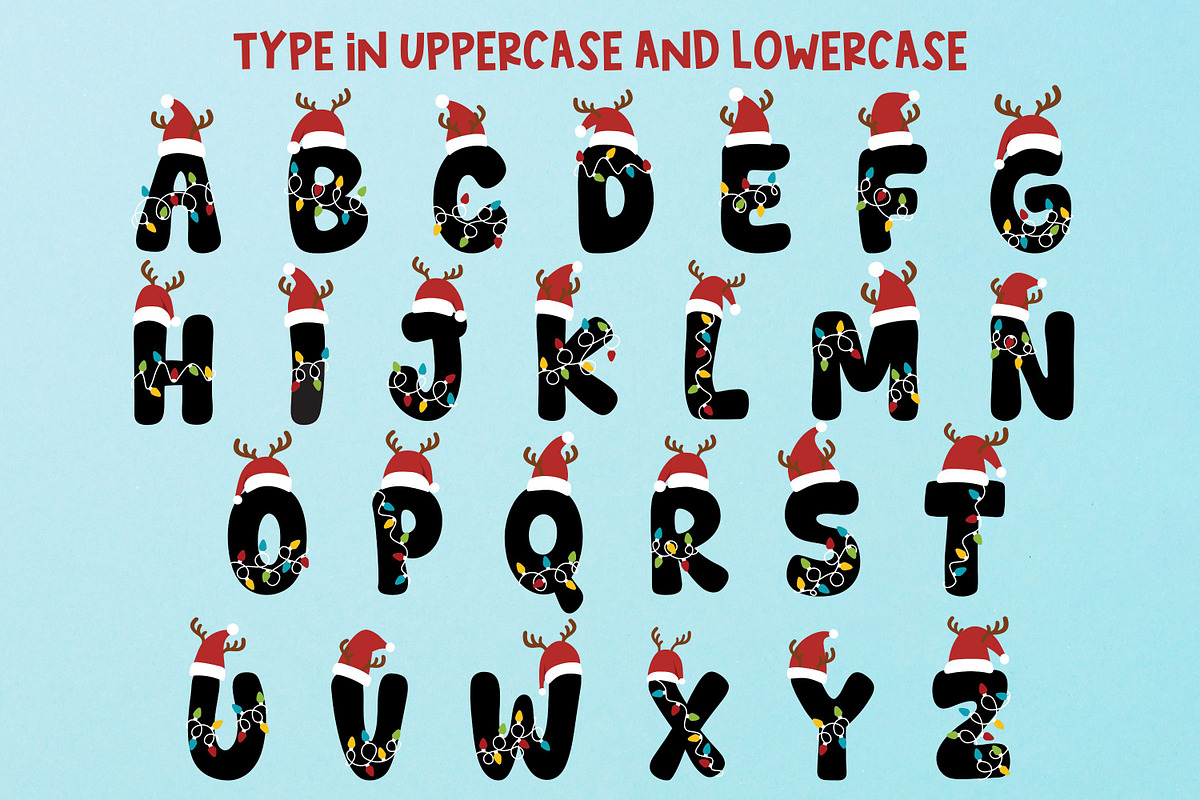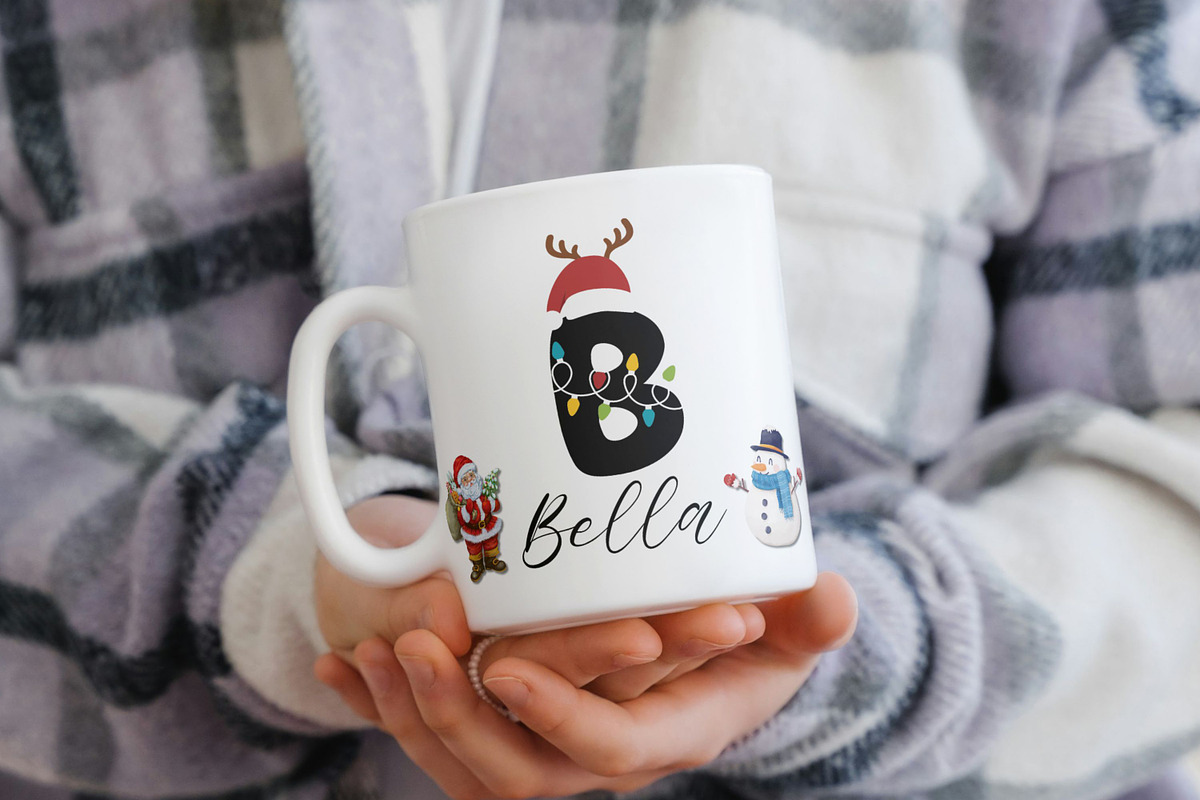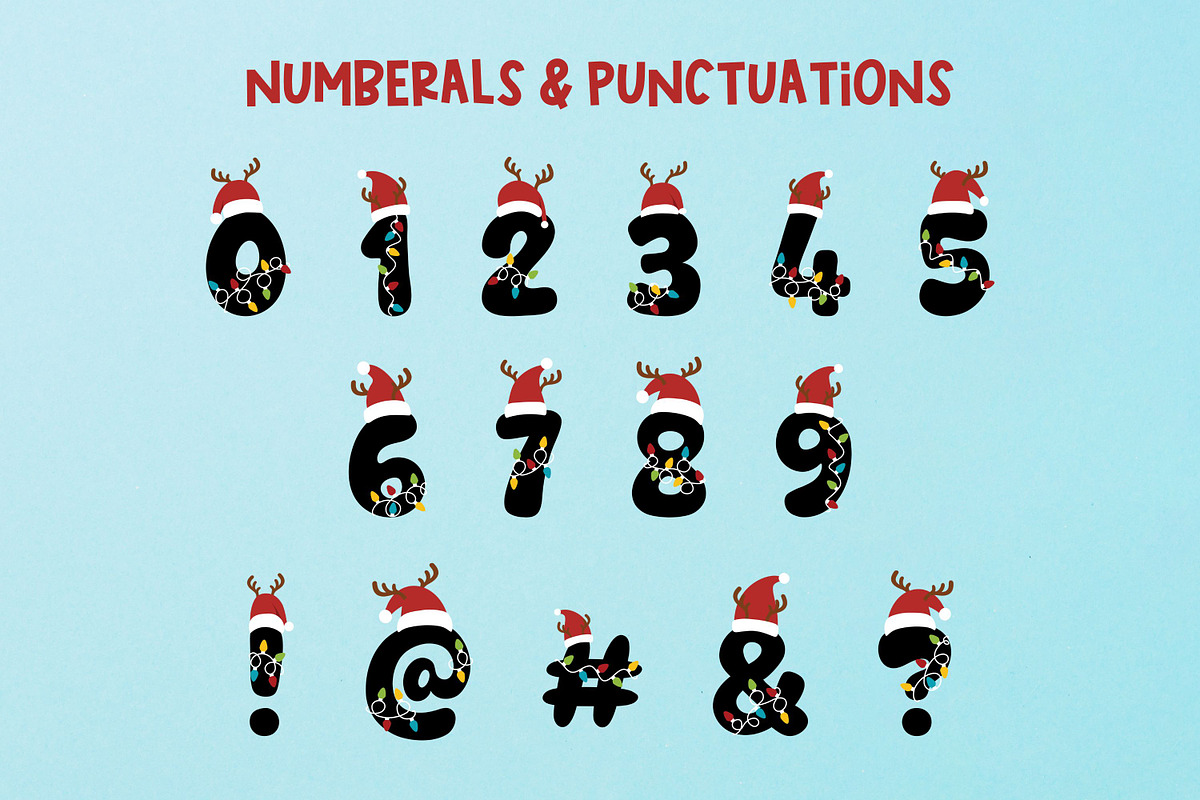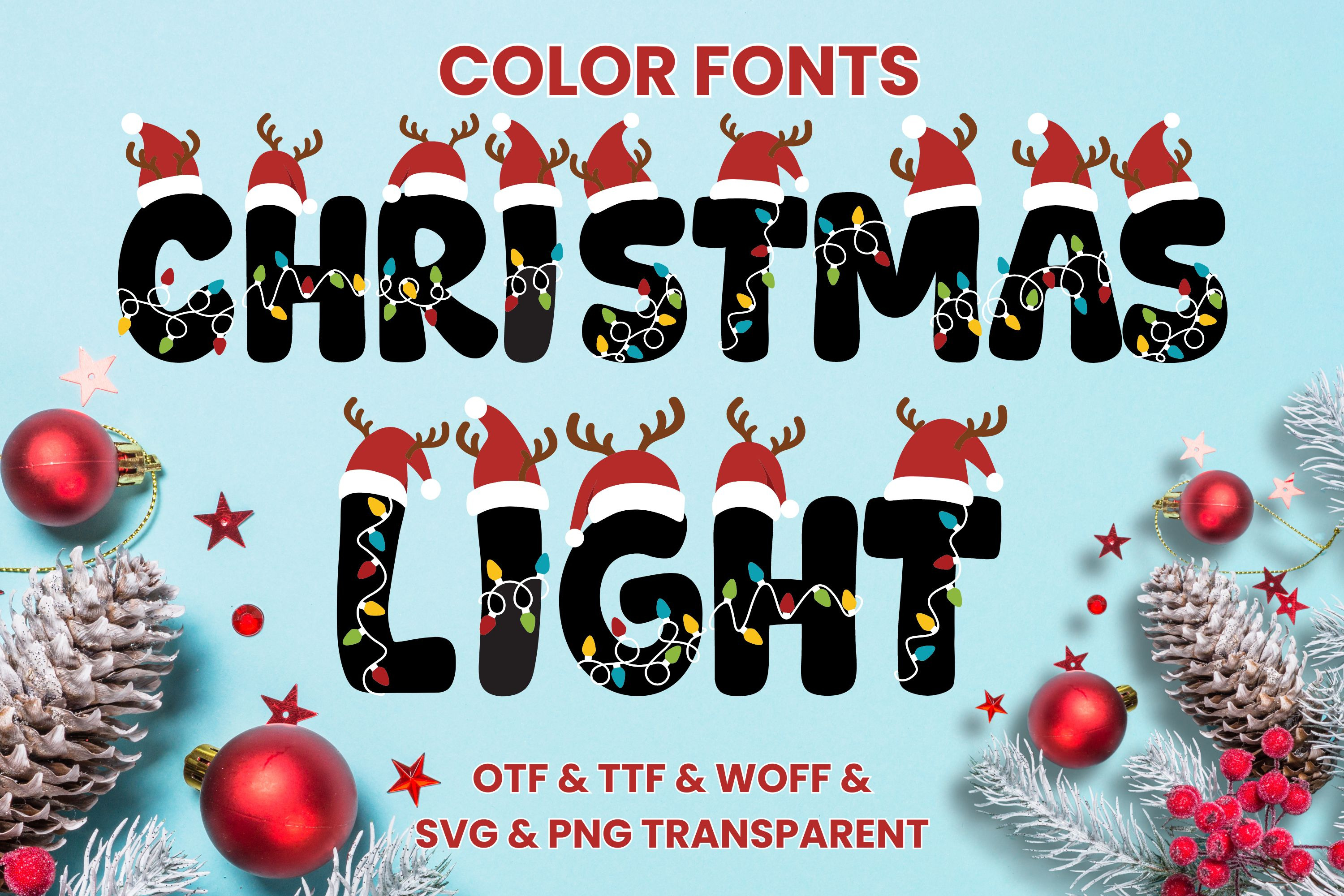
Christmas Light - Color Font
Introducing Christmas Light, a vivid and playful color font that brings a touch of enchantment to every Christmas-themed design. Its captivating character effortlessly melds with t-shirt designs, digital imprints, craft creations, decorative cards, and extensive projects.